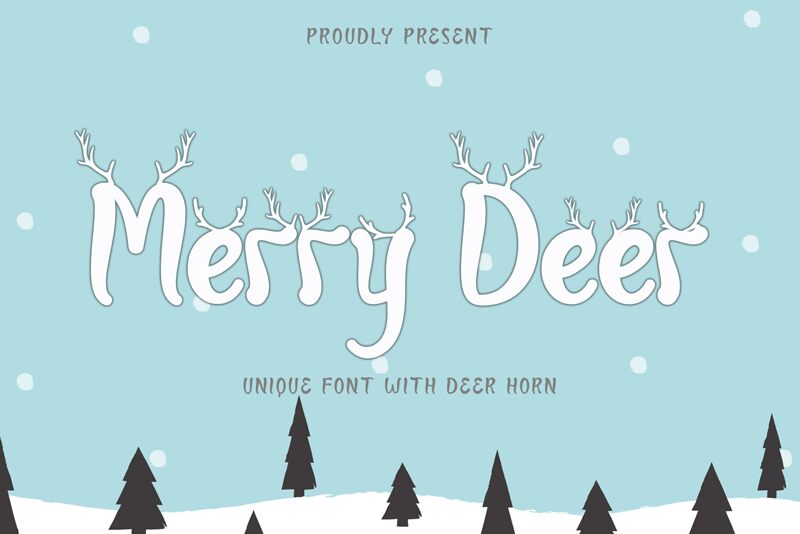
Merry Deer
Merry Deer font is a cute decorative typeface designed by Yoga Letter.
Fall in love with its incredibly cute style and use it to create spectacular designs!